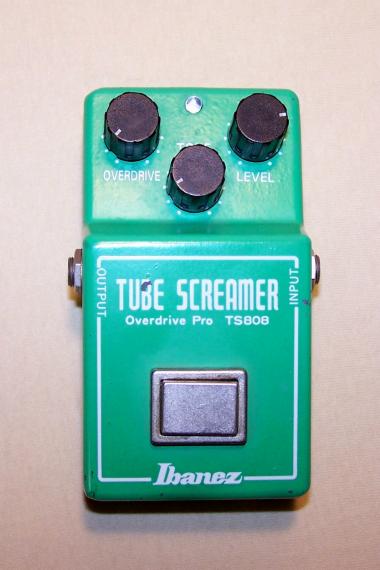
This is the forum for typographic inspiration and motivation. Many people (including myself!) have FontStructor's block, where they're unable to manifest new ideas for typefaces. This forum is the remedy.
If you are suffering from FontStructor's block or would just like to offer inspiration, motivation, or creative applications of typography, this is your place.
This is a font Betaport I recently made just for fun. Inspired by beatport's logo. You guys can try making it with fontstructor, or add Uppercase:
Did you do it WITH the fontstructor?
Oh, no, of course not, you have to work with beziers in fontstructor to achieve that, which I can't. I made it with font creator, nothing special, just imported logo and copy-paste, and it's not actually very accurate.
I'm now working in a clone of the font that Avicii uses in his latest videos. I made it with the Font Creator too (It's also not very accurate)
Cool! You should hurry up, I have a feeling that you're not the only one who's trying to recreate it, this font's been requested all over the internet :).
Im inspired by Herb Lubalin and all the other great designers out there, but it doesn't really show well in my fonts. Just a little more ligatures.
I am sometimes inspired by 'unusual' shapes of letters I find in the fonts I download.
Sometimes I am inspired by a plant or animal I see, or by nature photos (specially the close-ups).
But more often I am inspired by a word, situation, name: it invites me to create a font that expresses what I feel or know when hearing the word.
Unfortunately I don't always have the time to build a complete character set so it stays in the initial stage of 'idea' or 'adaptation' - I am one of those fontstructors who "keep private" a lot of fonts simply because they need or deserve more time spent on them than I have available when the inspiration enters my mind. I tend to work on them when I have fontstructor's block ...
I've always been inspired by band logos, as well as games, ever since I was a kid. I've designed a few here and there for friends, but I've always loved typography--it's one of the many artistic mediums I like.
I'm inspired by moderate and clean fonts that are frequently used. Those inspired me to make beziers.
I'm usually inspired by music (ok, that's strange XD) It happens to me all of the time that I'm listening to the radio and I can't stop thinking how would the CD cover be like, and what kind of font would go with the music.
I'm also addicted to any kind of type review (old posters, books, CD's, etc.) But specially Magazines. Oh, magazines, my treasure...
A logo for a translation service I designed using FontStruct. (Not the speech bubble, of course.)
I designed this logo for my company, WDS. Feel free to make a similar logo :)
And doesn't the font used for this guitar pedal look like it was made in FS?
What about a little inspiration game? =)
1. Pick randomly two words from the list below.
2.Try to make a fontstruct that has the two features you picked up.
3. Enjoy!
Blackletter,Circus,Didone,Striped,Art Decó,Glyphic,BrokenLetters,Distorted/Eroded,Western,Outline,SlabSerif,Terror,Stencil,Unicase,Schadowed,Cómic,Dingbat,Script,Inline,ArtNouveau,Grafitty,Futuristic,Dotted,ClassicRoman,Madlydecorated,Inverted,Sketchy,SansSerif,ForeignAlphabet,Ultrathin.
Blackletter,Circus,Didone,
Stripped,ArtDecó,Glyphic,
BrokenLetters,Distorted/Eroded,
Western,Outline,SlabSerif,
Terror,Stencil,Unicase,
Schadowed,Cómic,Dingbat,
Script,Inline,ArtNouveau,